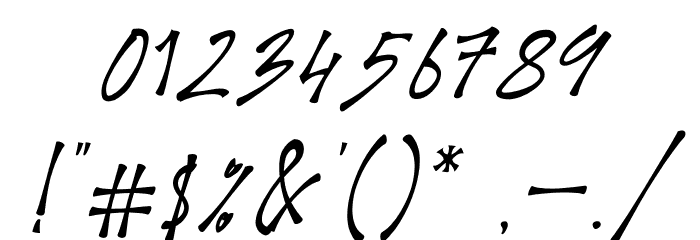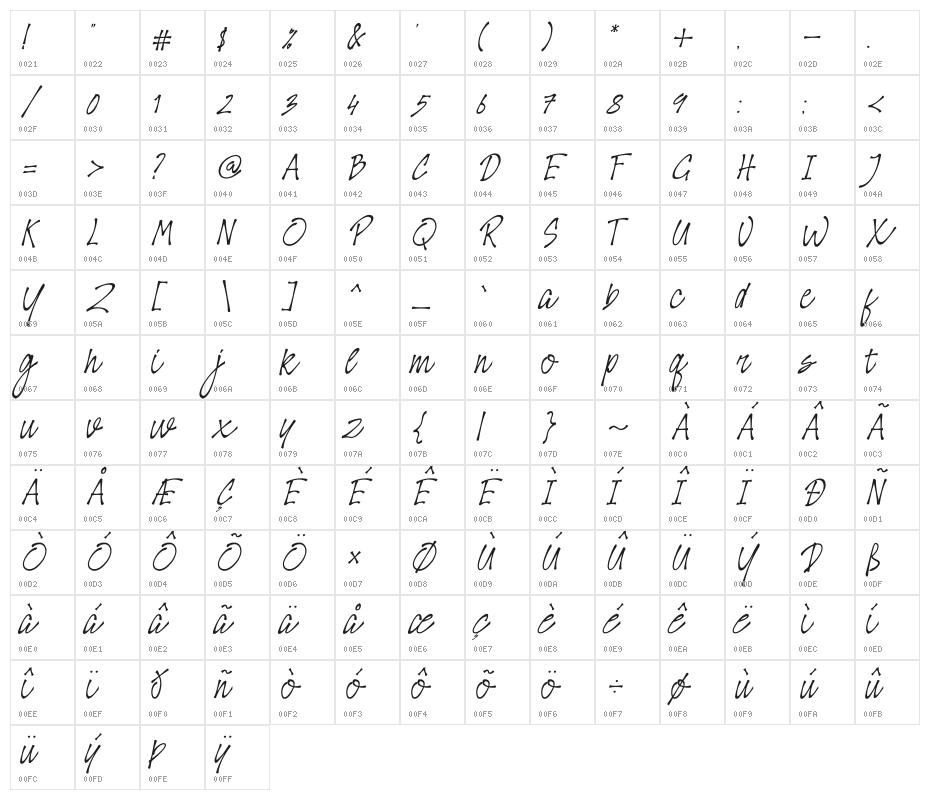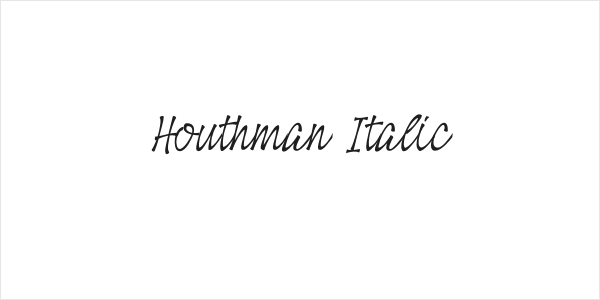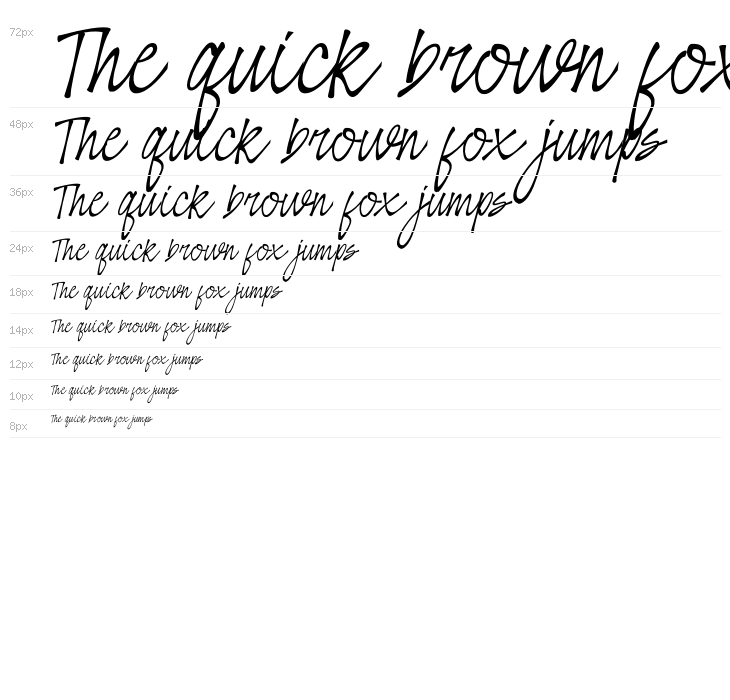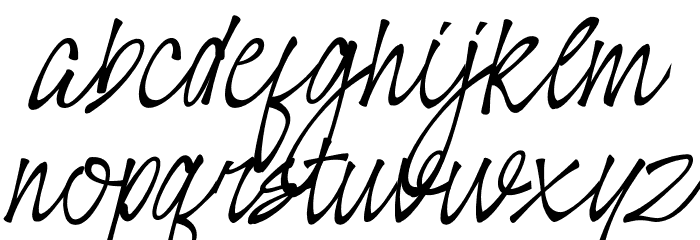
Houthman Italic Font
Houthman Italic Description
This font exudes a dynamic and fluid style, characterized by its cursive, handwritten appearance. The letters are elegantly slanted, giving a sense of motion and grace. The strokes are smooth and continuous, with a natural flow that mimics authentic handwriting. The uppercase and lowercase letters maintain a consistent style, while the numerals and special characters integrate seamlessly, enhancing the font's versatility. The overall impression is one of sophistication and creativity, making it suitable for projects that require a personal touch.
| Proposed Projects | Ideal for wedding invitations, personal branding, greeting cards, and artistic projects. |